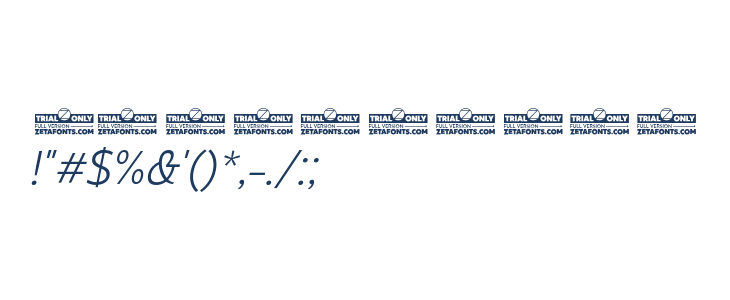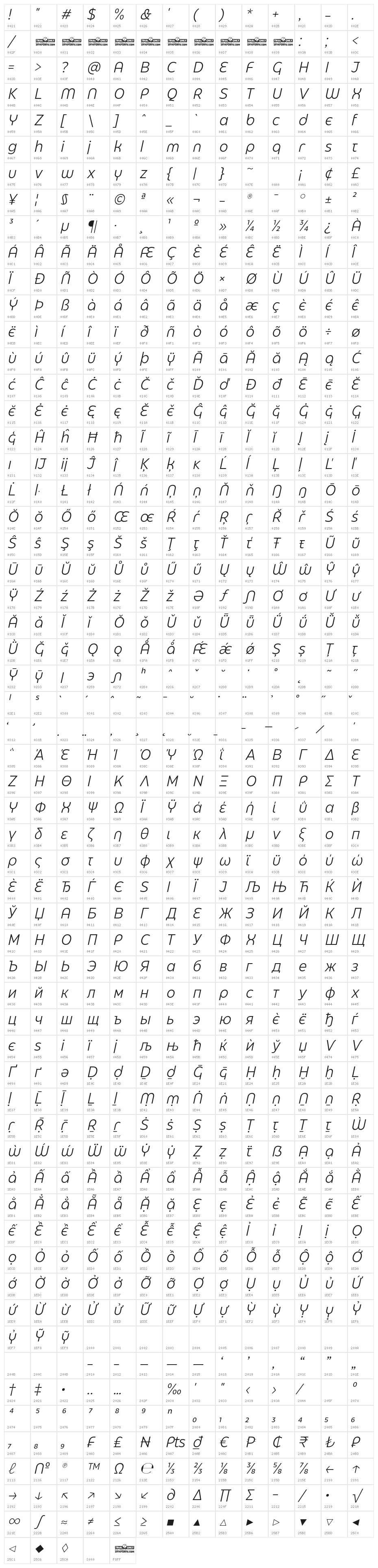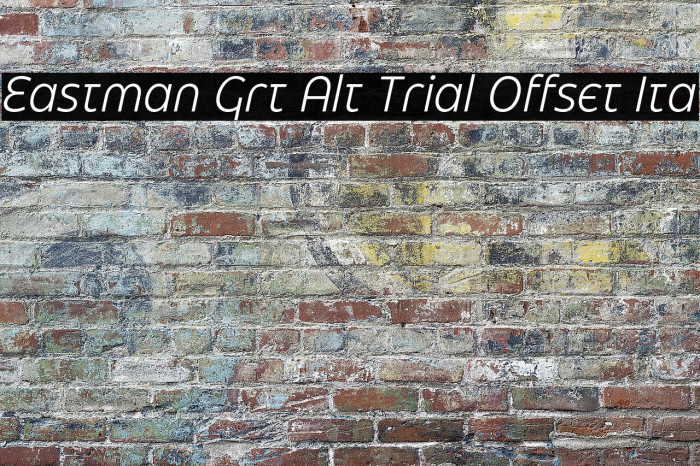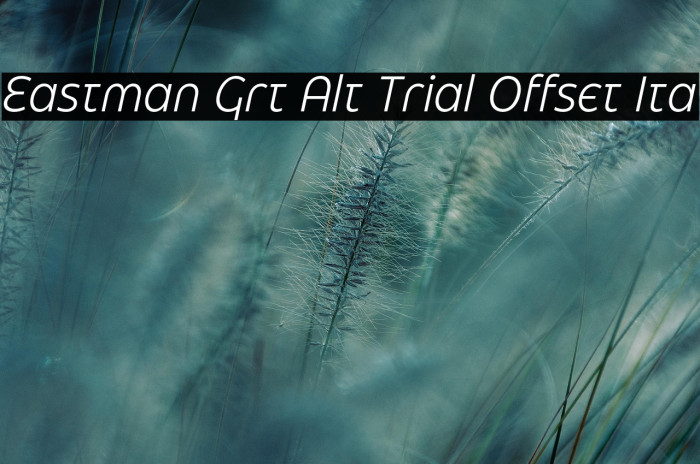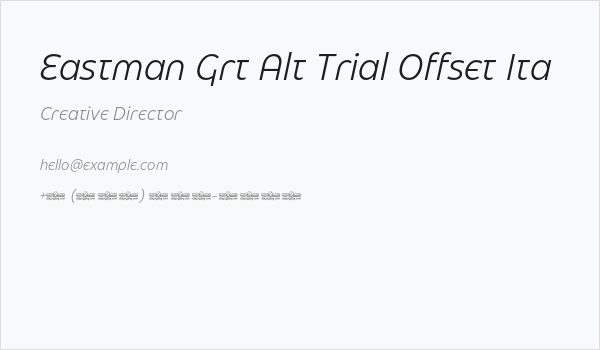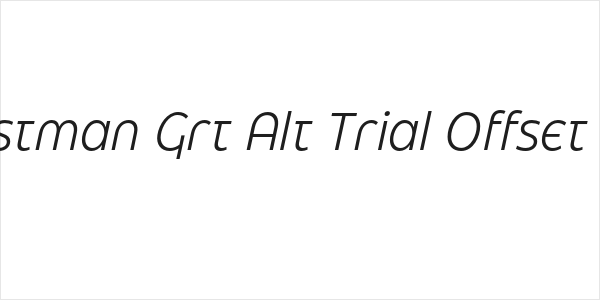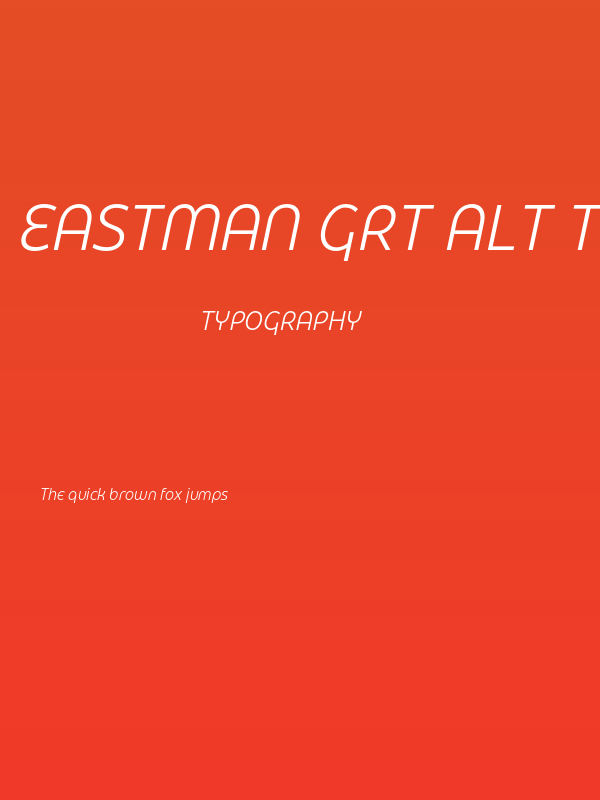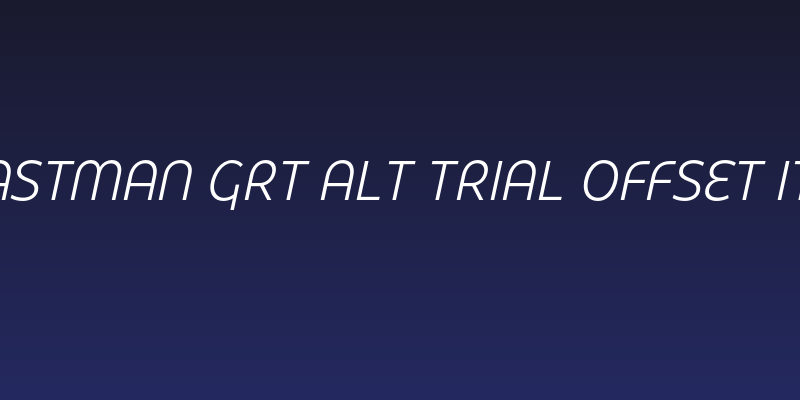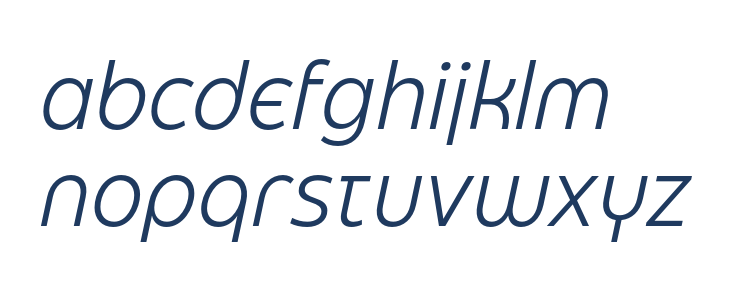
Eastman Grt Alt Trial Offset Ita Font
Eastman Grt Alt Trial Offset Ita Description
This font features a sleek, modern design with a slight italic slant, giving it a dynamic and forward-moving appearance. The characters are crafted with a clean, sans-serif style, emphasizing simplicity and readability. The uppercase and lowercase letters maintain a consistent flow, with rounded edges that soften the overall look. The numerals and special characters are designed to match the font's contemporary aesthetic, ensuring uniformity across all text elements. This font is versatile, suitable for both digital and print media, and can be used to convey a sense of modernity and professionalism.
| Proposed Projects | Ideal for branding, advertising, web design, and editorial projects that require a modern and professional look. |